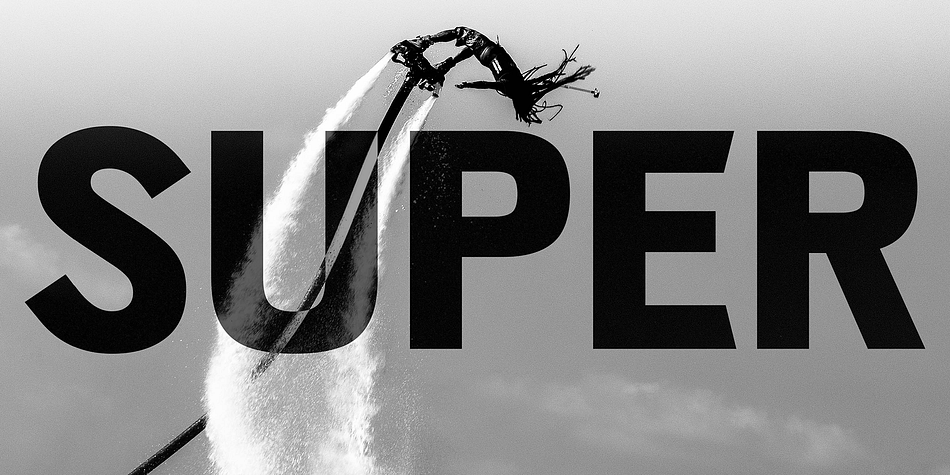
Designed by Oliver Jeschke, Darbee Legend is a sans serif font family. This typeface has twelve styles and was published by OGJ Type Design.
A new interpreted Gothic, which is suitable both as a headline and as a text font. A characteristic feature of the Darbee Legend is its boxy forms and the angled (unpainted) terminals.
Desert Gold, Bold Ruler, Black Caviar – cuts of the Darbee Legend are named after some of the best racehorses of all time.